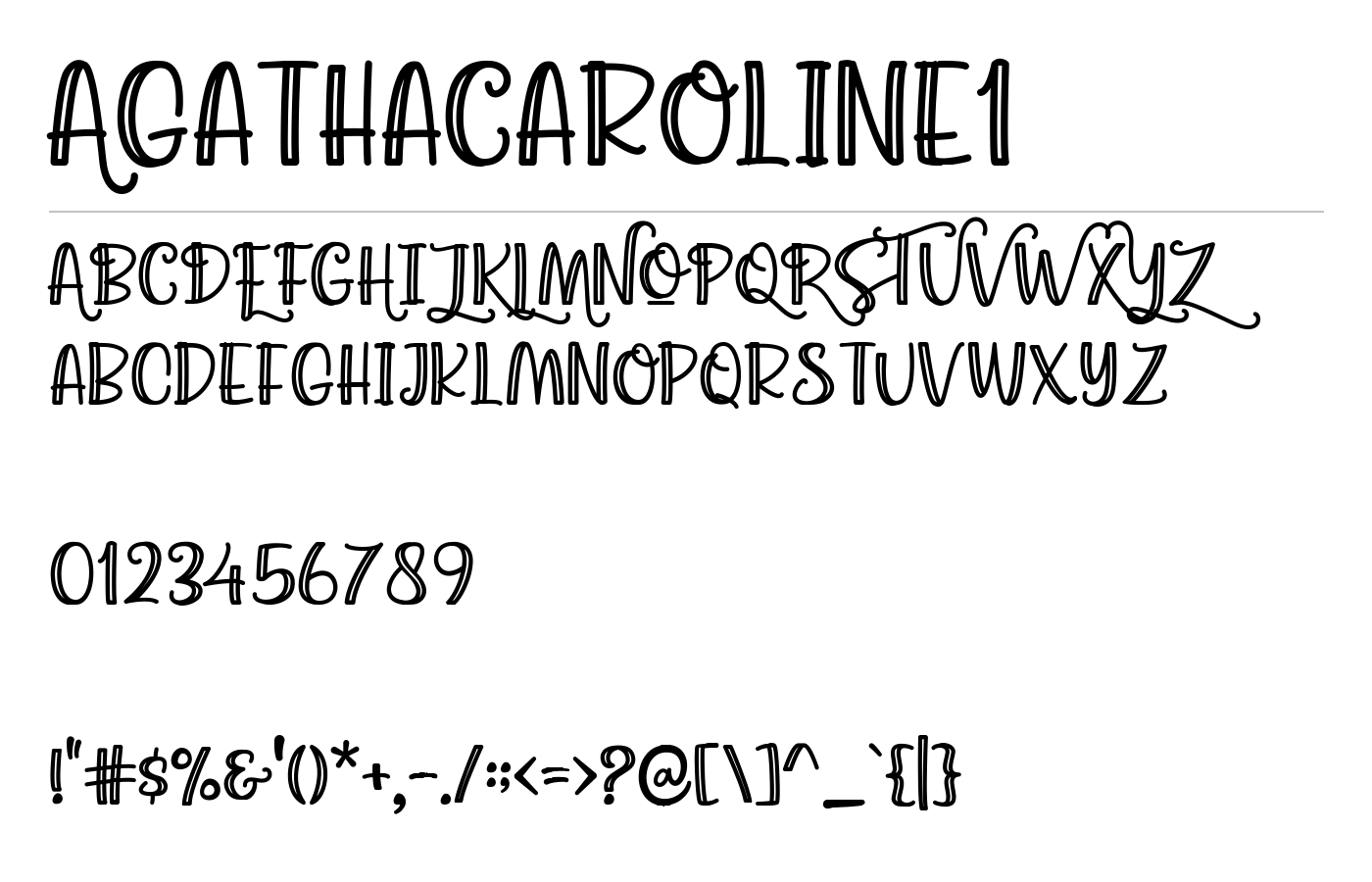
Agatha Caroline is a playful, hand-drawn sans serif font with tall, narrow letterforms and charming swashes that add personality and flair. Its lively, slightly irregular strokes and decorative curls make it ideal for creative branding, invitations, and fun headlines where a whimsical and approachable look is desired. This font works best in designs that want to feel friendly, informal, and uniquely artistic.
Agatha Caroline Font
About Agatha Caroline Font
| Font family | Agatha Caroline Font |
| Designer | Yan Suari Shakti Pasaribu |
| Trademark | Trademark of Beautypes Studio |